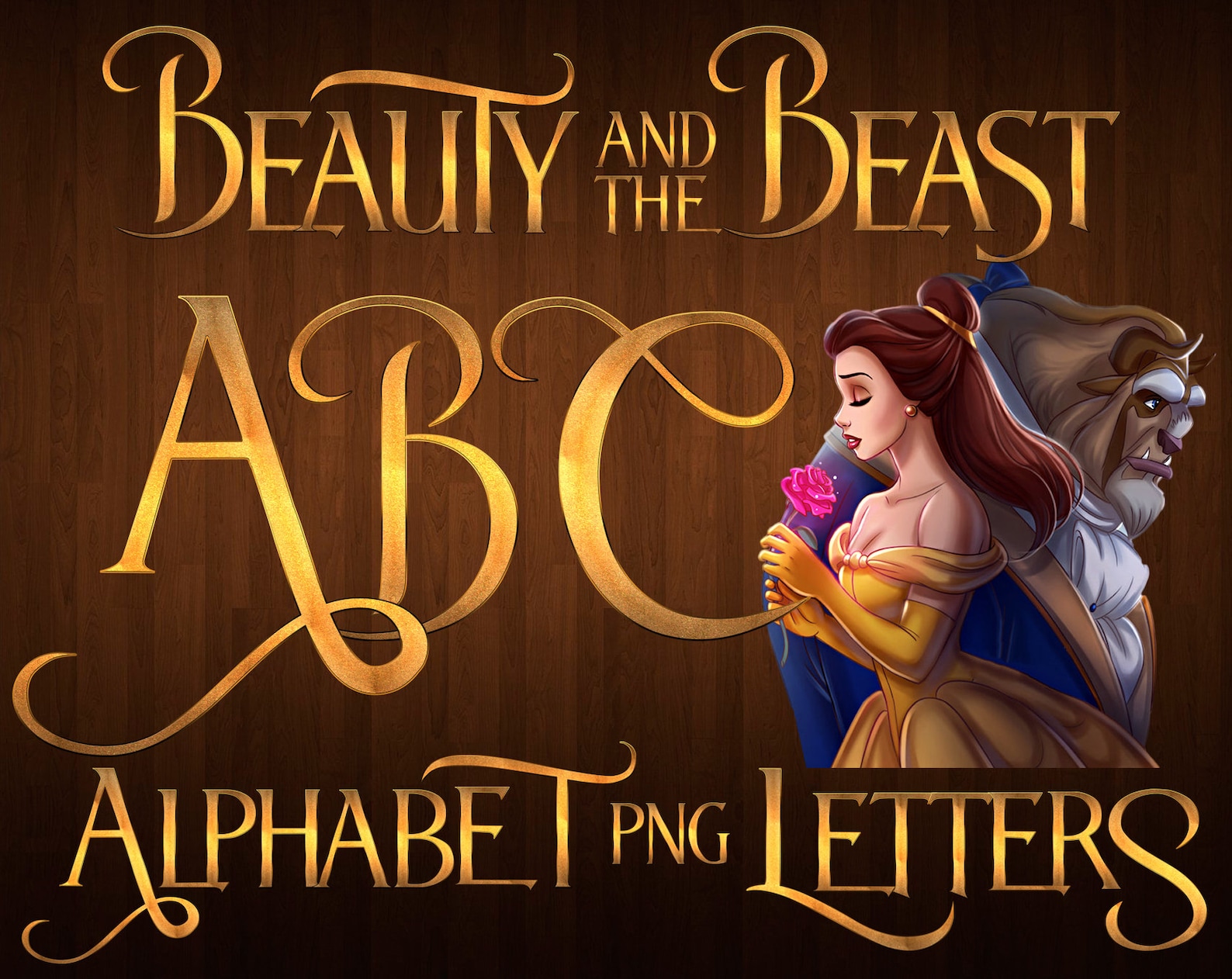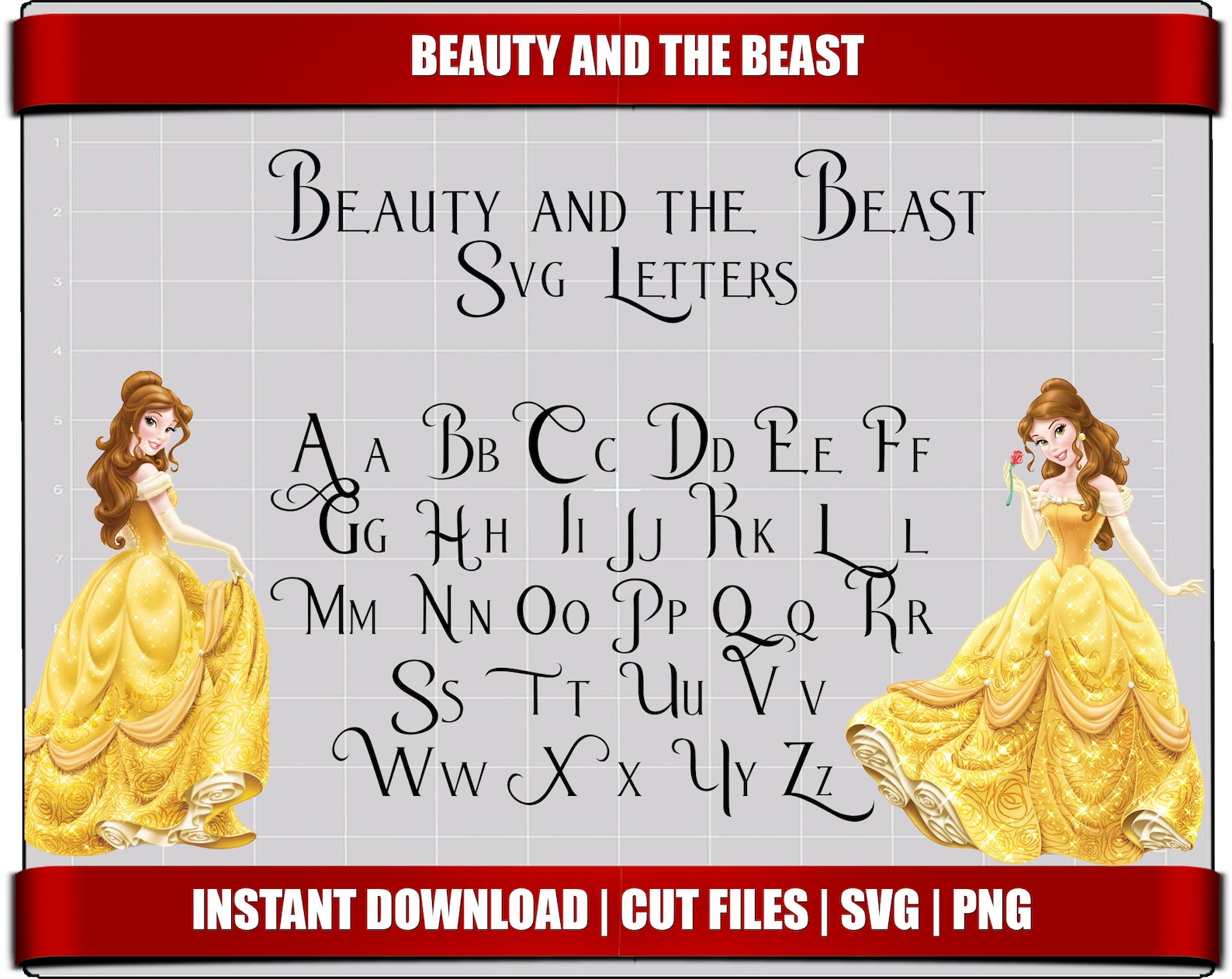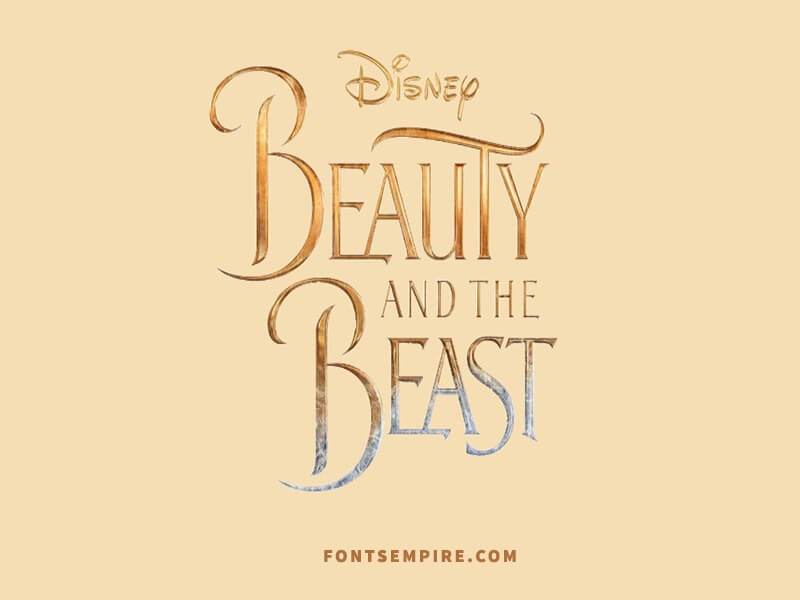
Beuty And The Beast Font
Beuty And The Beast Font - Web mar 21, 2018 at 05:36. This font is based on the 2017 beauty and the beast movie. You can find free fonts to generate your own designs. Web beauty and the beast fonts are created by fans that love the movies.